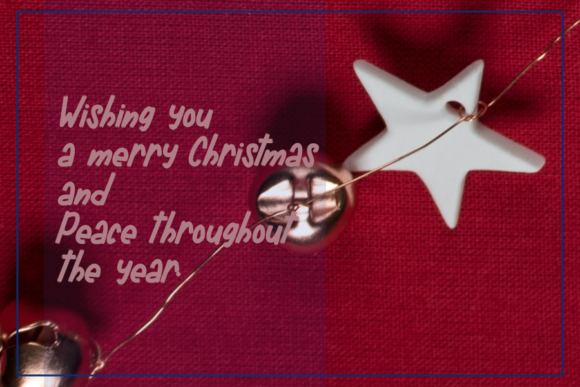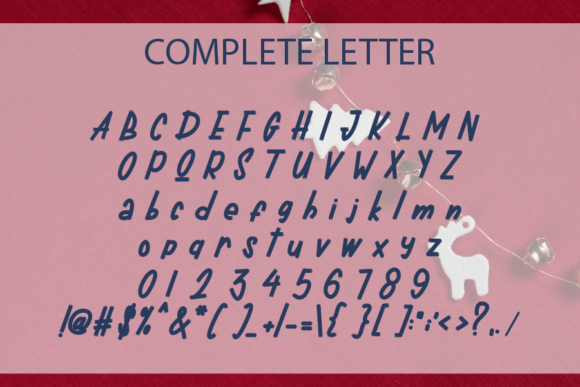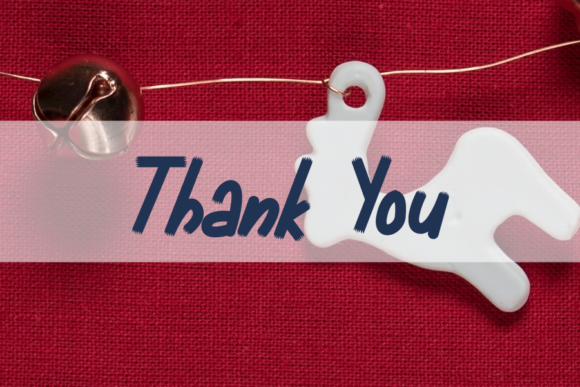
All Christmas Font: A Modern Display Font for Festive Designs
Are you looking for a font that captures the essence of Christmas and adds a touch of modernity to your designs? Look no further than All Christmas Font, a clean and quirky display font that’s perfect for logos, branding, social media, and DIY projects. In this article, we’ll dive into the features and benefits of All Christmas Font, and explore how you can use it to create stunning festive designs.
What is All Christmas Font?
All Christmas Font is a modern display font designed to bring a fresh and festive feel to your designs. With its clean lines and quirky charm, this font is ideal for creating eye-catching logos, branding materials, social media graphics, and crafty DIY projects. Whether you’re a designer, crafter, or small business owner, All Christmas Font is a versatile and fun font that’s sure to get you in the holiday spirit.
Key Features of All Christmas Font
- Clean and Modern Design: All Christmas Font features a clean and modern design that’s perfect for creating contemporary festive designs.
- Quirky Charm: This font has a playful and quirky charm that adds a touch of personality to your designs.
- Highly Versatile: All Christmas Font is suitable for a wide range of design projects, from logos and branding to social media graphics and DIY projects.
- Easily Readable: Despite its quirky charm, All Christmas Font is highly readable, making it perfect for use in a variety of design applications.
Uses for All Christmas Font
All Christmas Font is a versatile font that can be used in a variety of design projects, including:
- Logos and Branding: Create eye-catching logos and branding materials that capture the essence of Christmas.
- Social Media Graphics: Use All Christmas Font to create festive social media graphics, including Facebook posts, Instagram stories, and Twitter headers.
- DIY Projects: Add a touch of festive flair to your crafty DIY projects, such as handmade cards, gift tags, and decorations.
- Holiday Cards and Invitations: Create beautiful holiday cards and invitations that feature the charming and modern design of All Christmas Font.
Tips for Using All Christmas Font
Here are some tips for getting the most out of All Christmas Font:
- Experiment with Colors: All Christmas Font looks great in a variety of colors, so don’t be afraid to experiment and find the perfect hue for your design.
- Mix and Match Fonts: Combine All Christmas Font with other fonts to create a unique and eye-catching design.
- Use it for Headlines and Titles: All Christmas Font is perfect for use in headlines and titles, where its quirky charm and modern design can really shine.
All Christmas Font is a modern display font that’s perfect for adding a touch of festive flair to your designs. With its clean lines, quirky charm, and highly versatile design, this font is ideal for logos, branding, social media graphics, and DIY projects. Whether you’re a designer, crafter, or small business owner, All Christmas Font is a great choice for anyone looking to create stunning festive designs.